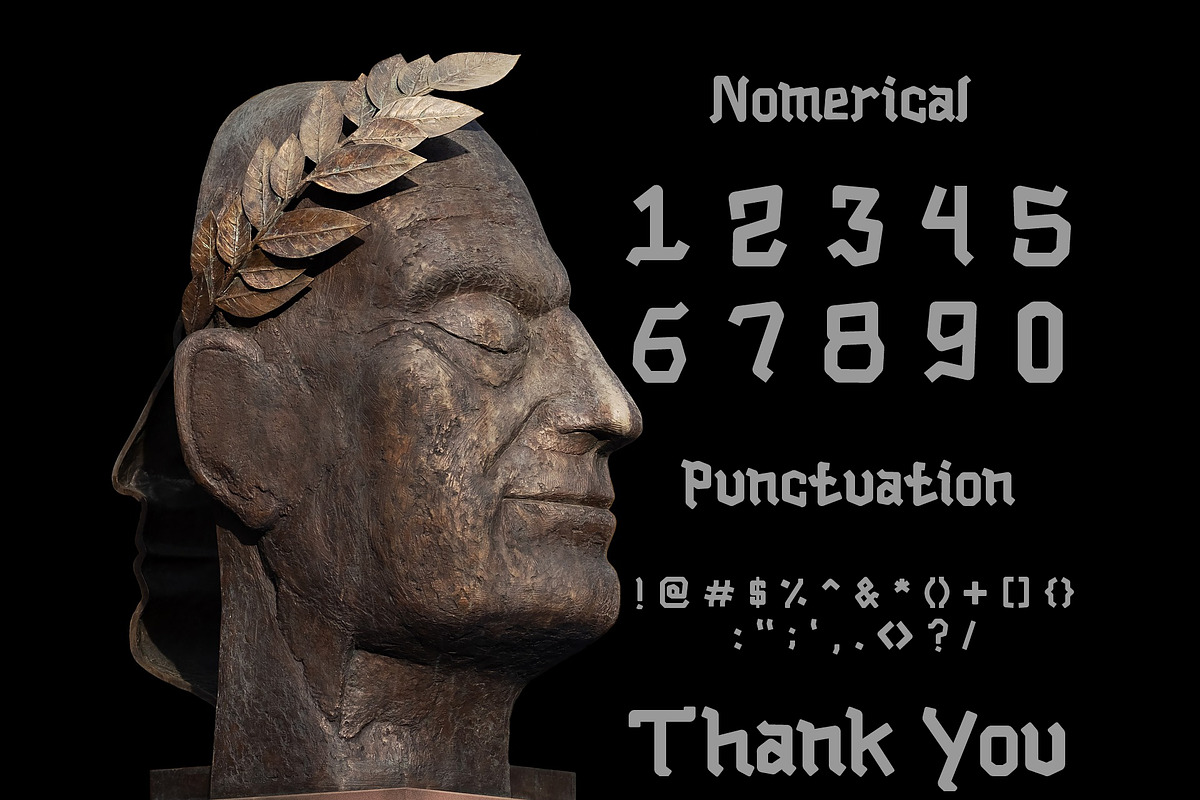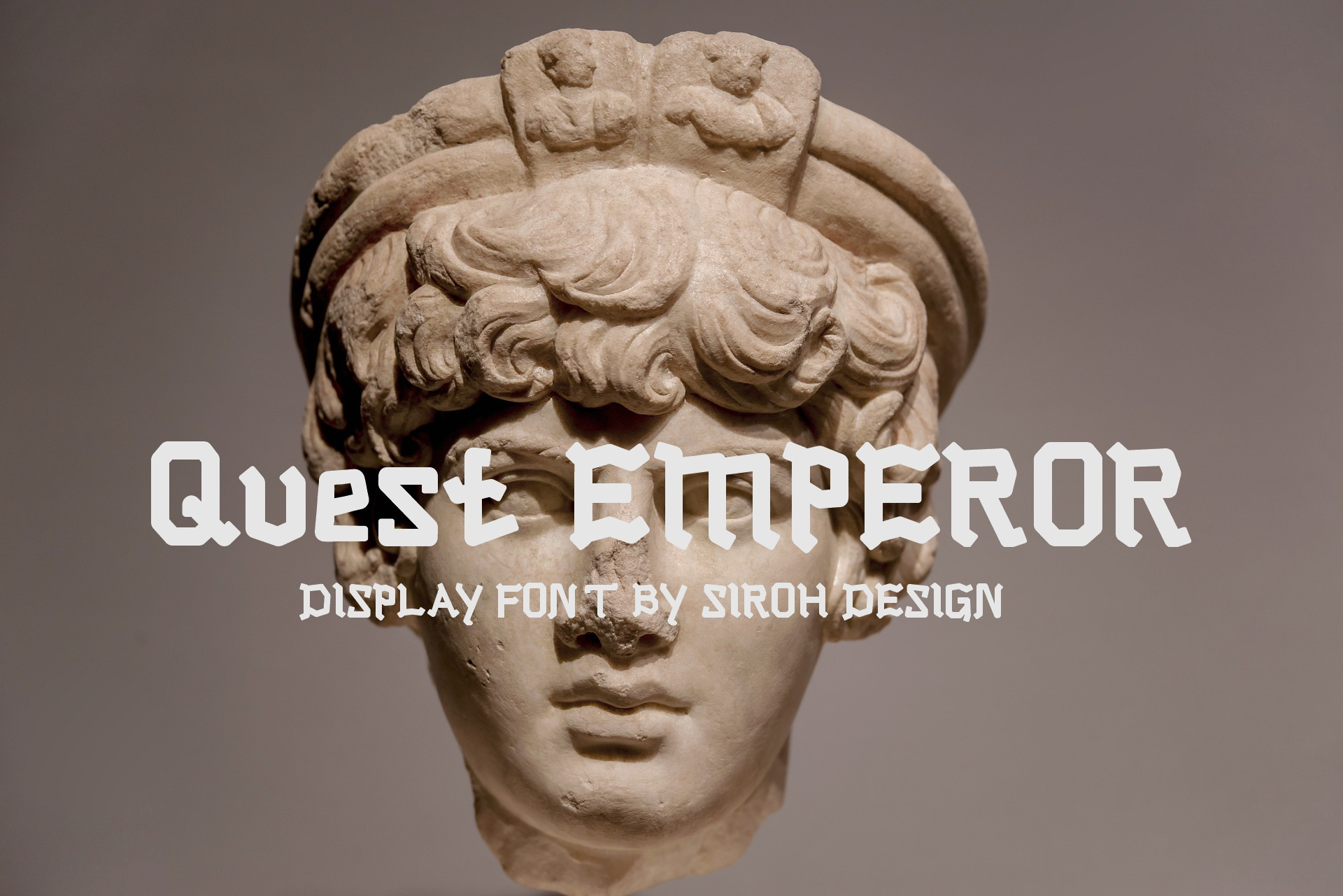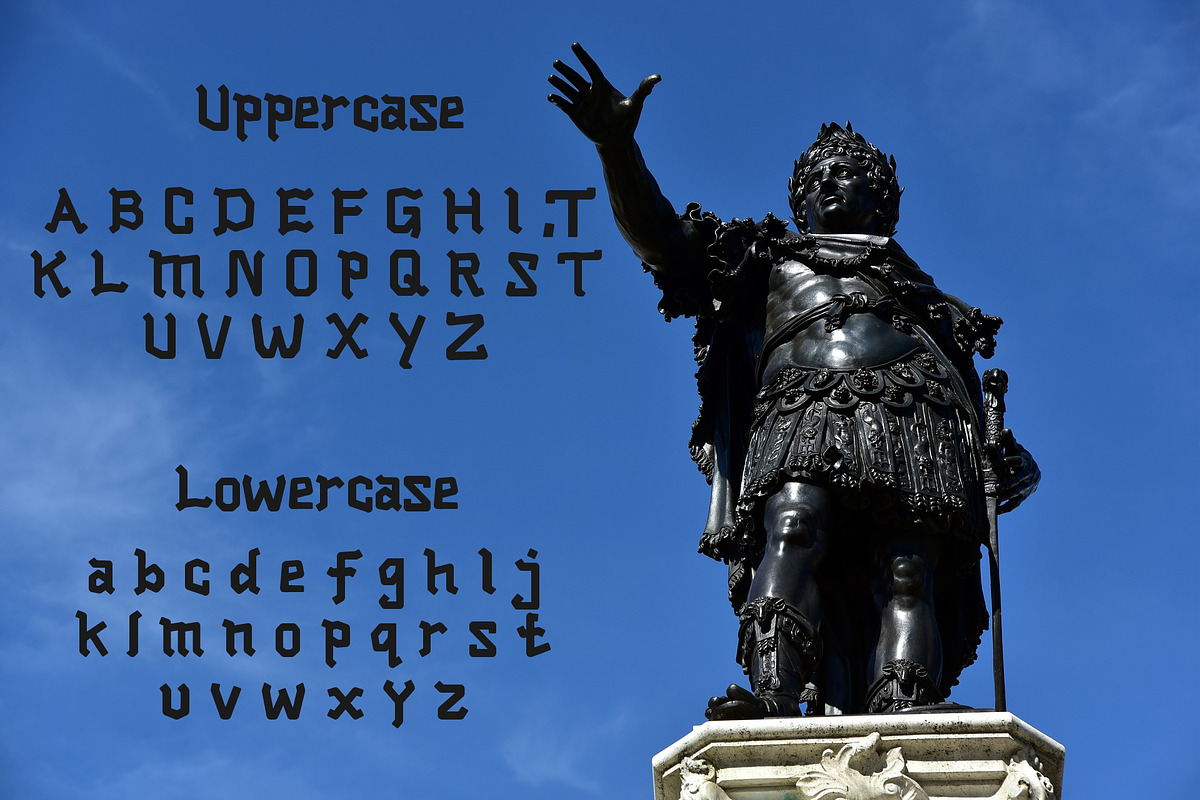
Quest Emperor Font
Quest Emperor is a trendy and cool display font. It is imposing and features uniquely shaped letters, and as a result, it will easily match a wide range of creations that require a distinct touch.